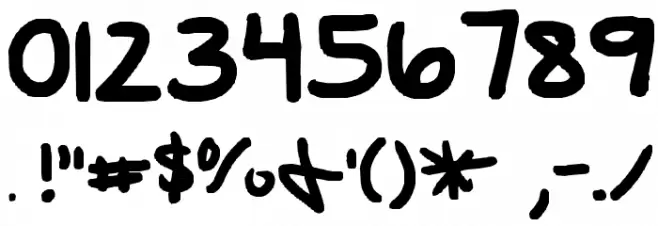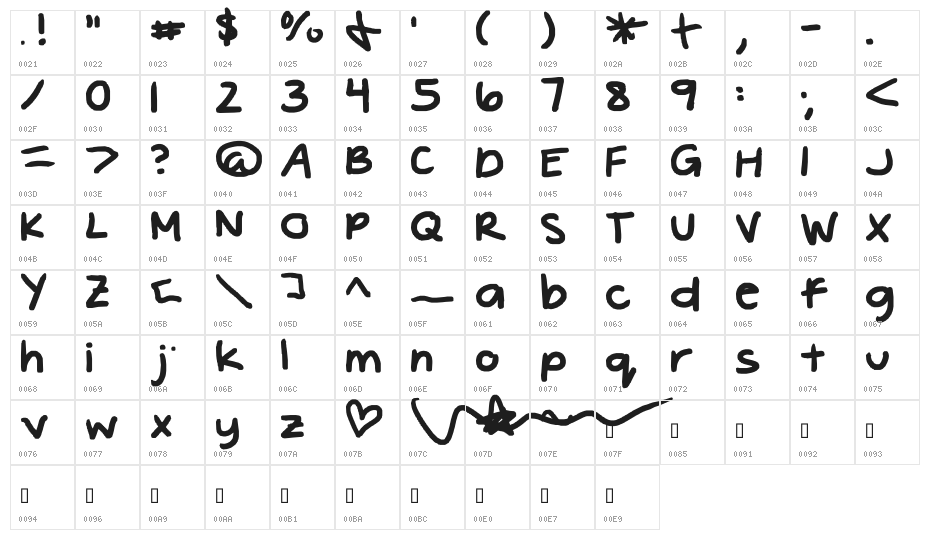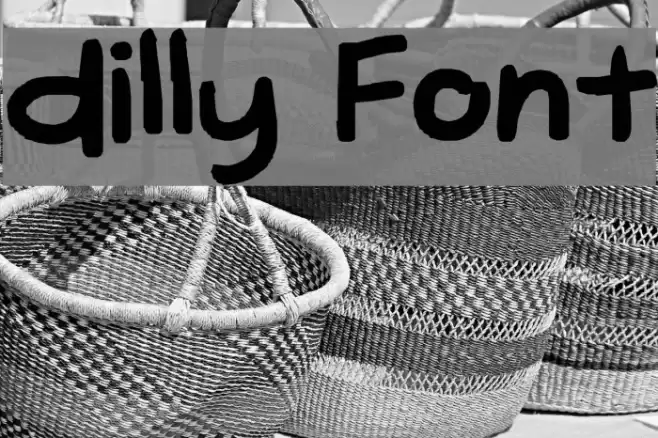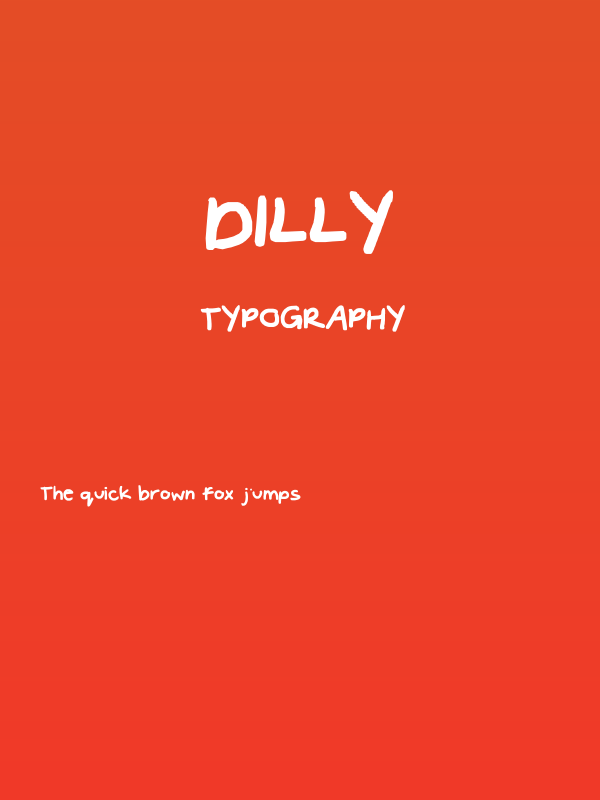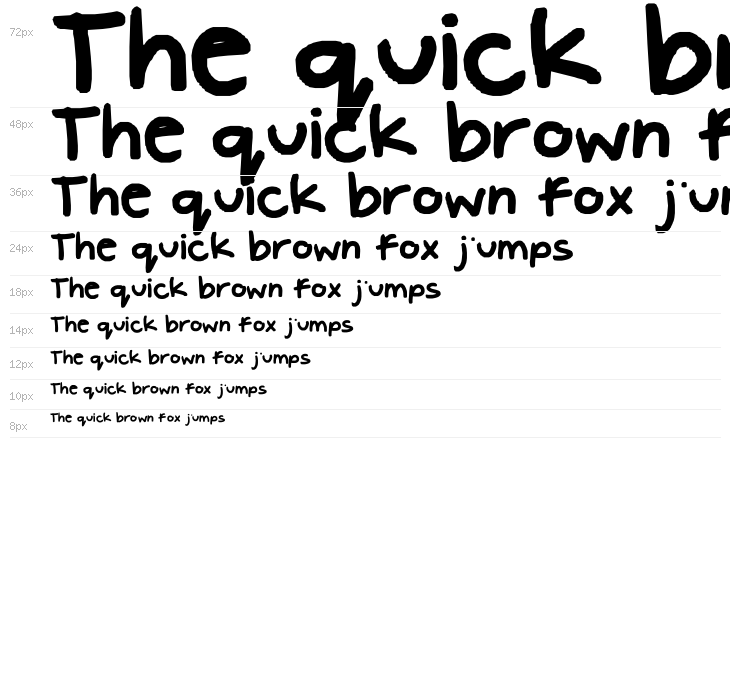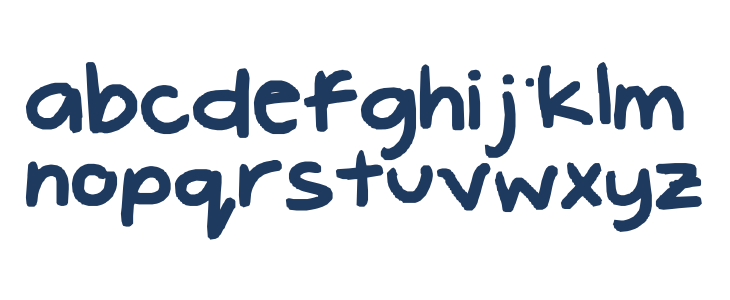
dilly Font
dilly Description
This font features a playful and informal handwritten style, characterized by its bold and rounded letterforms. The strokes are uneven, giving it a casual and friendly appearance. The uppercase and lowercase letters maintain a consistent style, with slightly exaggerated curves and a dynamic flow. Numbers and special characters follow the same playful aesthetic, making the font versatile for creative projects. The overall design is approachable and lively, suitable for conveying a sense of fun and spontaneity.